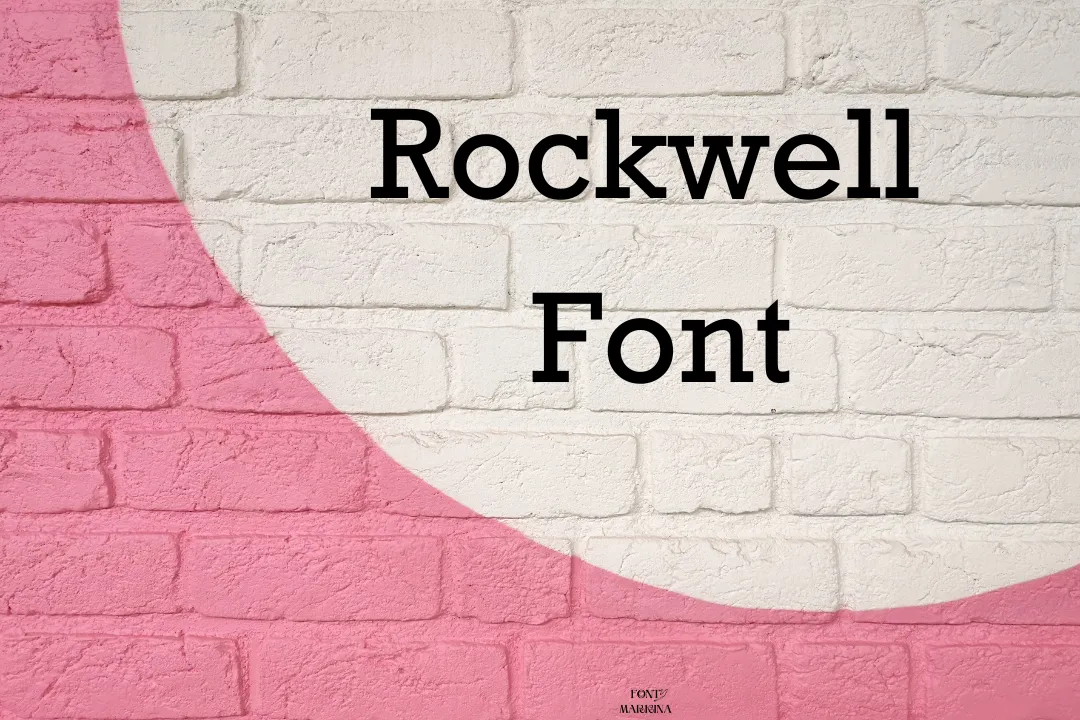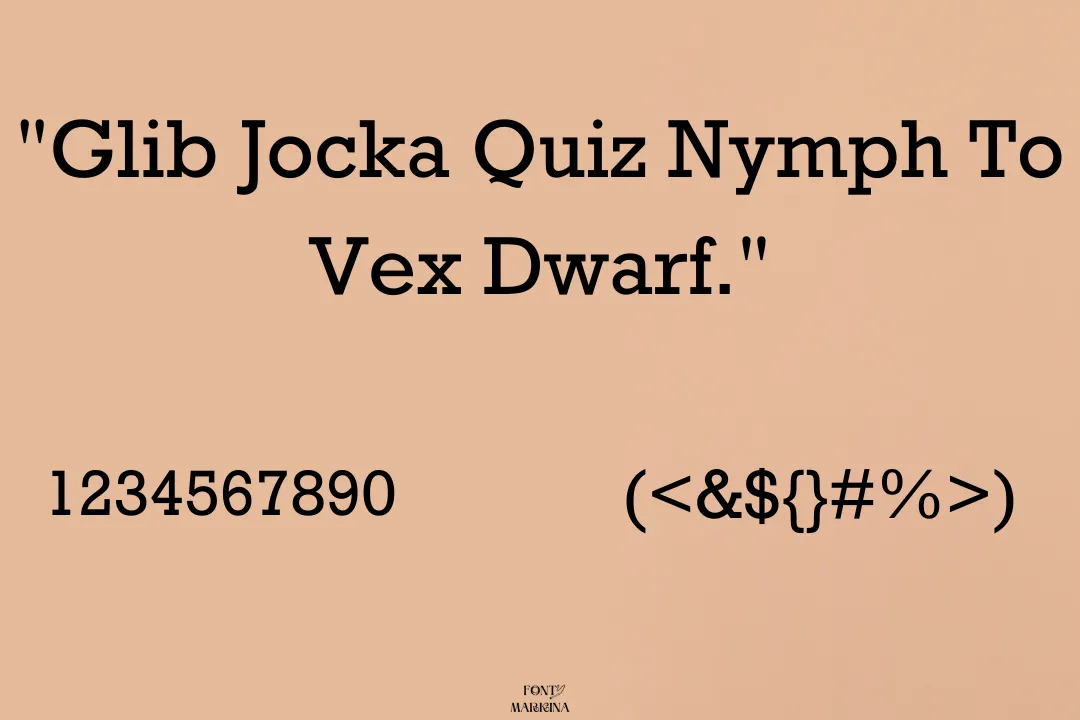
About Rockwell Font
The Rockwell Font is a serif typeface designed by Matthew Carter in the early 1990s for the Monotype Corporation. It is a “slab serif” design, which means that the serifs are thick and block-like.
The design is inspired by the geometric shapes used in the 1920s and 1930s art deco posters and architectural typography. You may easily download it free from here for your various operating systems Windows, MAC, and Linux.
It is planned for headlines and display settings, rather than body text. This font is available in various weights and styles, including regular, bold, italic, and bold italic. It is widely used in print and digital media, such as newspapers, magazines, and websites.
The pairing quality of this font will assets you to create elegant designs, it can be paired with Playfair Display font and make gorgeous projects. The online generator tool of the Rockwell texture will convert all your normal textures into stylish and modern shapes.
Uses of Rockwell Font
Rockwell is a versatile serif font that is often used for headlines, display text, and other large-scale typography. Its strong, geometric shapes make it well-suited for use in posters, brochures, and other marketing materials. It’s a good choice for text that needs to be legible at small sizes, such as headlines and short paragraphs of body text.
Rockwell’s clean lines and bold serifs make it well-suited for use in modern, minimalist designs. It’s also a popular choice for use in retro-inspired designs, as its art deco-inspired shapes are reminiscent of the typography used in the 1920s and 1930s.
You may utilize this stunning typeface with times new roman font. The font is often used in different types of media such as print, web, and advertising. It’s also used in branding, packaging, and logo design. Rockwell’s popularity is likely due to its versatility, legibility, and timeless design.
It is a classic typeface and it’s an ideal choice for creating a strong, bold, and elegant look. It’s also a great option for creating a sense of tradition, stability, and reliability. It’s a timeless font that will always look good in a variety of design contexts, and will always be a good choice for creating a sense of timeless elegance.
The Rockwell typeface was intended to be a versatile and legible typeface that could be used in a wide range of design contexts. It became popular among designers and typographers for its clean lines, bold serifs, and strong geometric shapes. The font has been widely used in print and digital media.
Rockwell Font View
Similars to Rockwell Font
Several similar fonts to Rockwell share its clean lines, bold serifs, and strong geometric shapes. Some examples include:
Clarendon Font
This is a classic slab serif font that was first released in 1845. It has a similar geometric shape to Rockwell, but it has a more traditional look.
Neuton Font
This font has similar characteristics to Rockwell, but it has a more modern and minimalist look.
Museo Slab Font
This font has similar characteristics as Rockwell, but it has a more rounded look and it’s more versatile.
Memphis Font
This font has similar characteristics as Rockwell, but it has a more rounded look and it’s more versatile.
Roboto Slab Font
This font has similar characteristics as Rockwell, but it’s more suitable for digital and web use.
Merriweather Slab Font
This font has similar characteristics as Rockwell, but it has a more traditional look and it’s more versatile.
Is the Rockwell font available in different weights and styles?
This typeface is available in various weights and styles, including regular, bold, italic, and bold italic.
Are there any free alternatives to the Rockwell font?
Some free alternatives to Rockwell include Atletico bold font, Merriweather Slab, and Arvo Slab. However, please note that the quality, legibility, and design may differ from the commercial version of Rockwell.